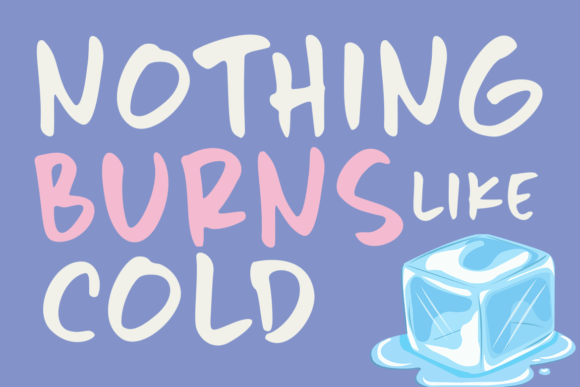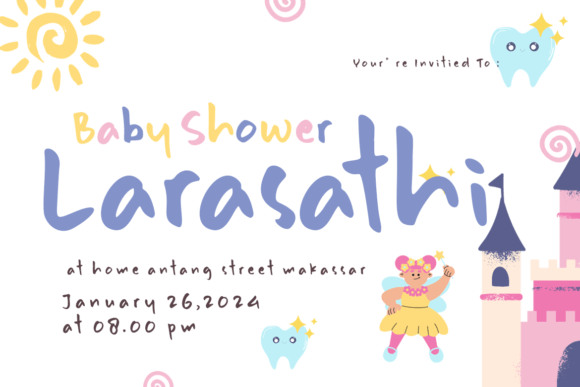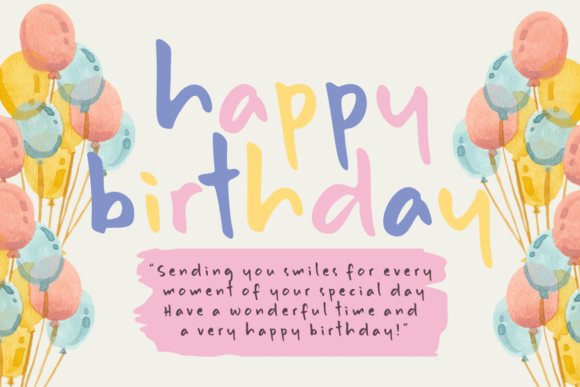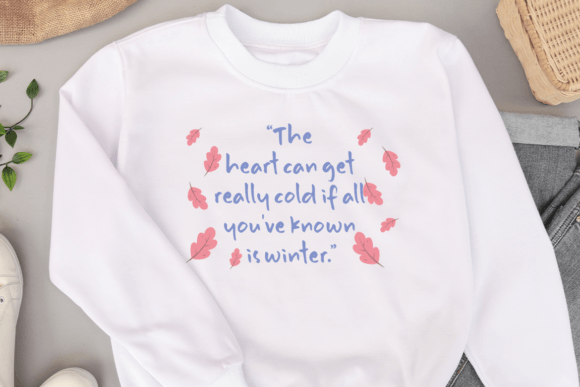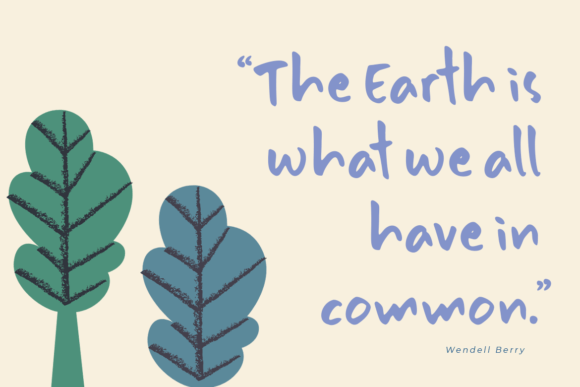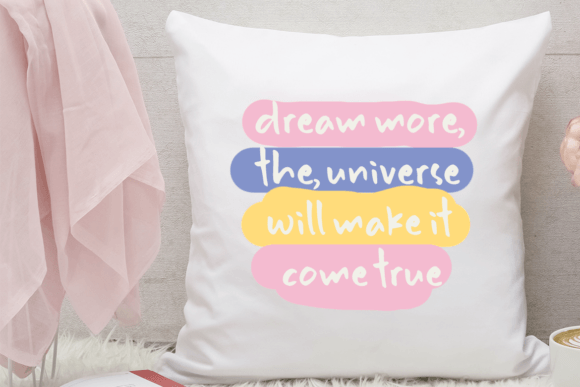
Introduction to Magic Stick Font
Have you ever been working on a design project, pouring over lines of code and layouts, only to feel like something’s missing? A spark of creativity that sets your project apart from the rest? That’s exactly what the Magic Stick Font can do for you.
As a valuable resource for designers, the Magic Stick Font offers a unique combination of style and versatility that’s perfect for a wide range of creative projects. With its high-quality, handwritten script design, this font is sure to add a touch of elegance and sophistication to any design.
Key Features of Magic Stick Font
- High-quality design resource suitable for various creative projects
- Unique, hand-drawn style with intricate details and subtle texture
Honest Review: Magic Stick Font
As a designer, I’m always on the lookout for high-quality design resources to elevate my creative projects. The Magic Stick Font caught my eye, and I decided to give it a try. Here’s my honest review.
- Unique and quirky design: The Magic Stick Font has a distinctive look that’s sure to add a touch of whimsy to any project.
- Limited character set: The Magic Stick Font is a bit limited in terms of the number of characters available, which might be a drawback for designers who need to use it for longer text.
- Not suitable for all projects: The font’s quirky design might not be the best fit for more formal or professional projects.
Overall, I think the Magic Stick Font is a great resource for designers who want to add a bit of personality to their creative projects. While it has some limitations, its unique design and transparent background make it a valuable addition to any design toolbox.
For best results, use the Magic Stick Font in conjunction with a bold or colorful background to make it stand out. Experiment with different font sizes and styles to create a unique look. You can also use the Magic Stick Font in combination with other design elements to create a cohesive design.
The Magic Stick Font is commonly used in creative projects such as social media graphics, flyers, and brochures. It’s also a great choice for designers who want to add a touch of whimsy and playfulness to their designs. With its high-quality design and transparent background, the Magic Stick Font is a versatile resource that can be used in a variety of creative projects.